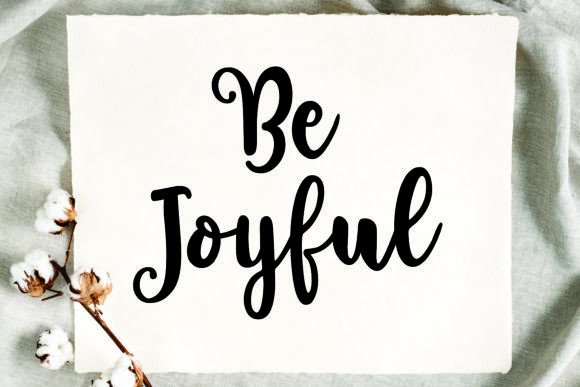
Sweet Christmas Font
Sweet Christmas is a stylish handwritten font with a contemporary atmosphere and impeccable form, inspired by a timeless classic calligraphy.
Balanced and varied, this font was designed to enhance the beauty of your projects
Don’t let your designs blend in with the crowd this December. Stand out with the enchanting Sweet Christmas font, perfect for adding a touch of handmade charm to your projects. Its playful curves and flowing strokes will bring your ideas to life, making every creation feel like a heartfelt gift.